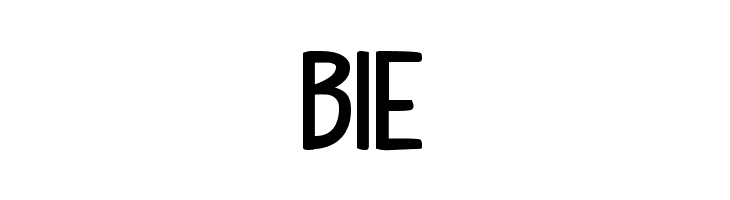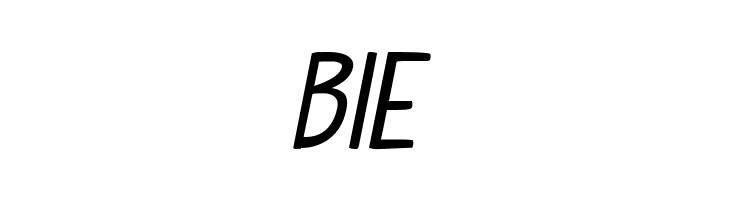
• india hair style
A playful and decorative font with whimsical loops and curls.
• India Hair Style-Hollow
A playful, hollow font with unique loops and curls on each character.
• India Hair Style-Hollow-Inverse
A decorative hollow font with playful loops and rounded terminals.
• India Hair Style-Inverse
A playful, decorative font with unique curls and loops, inspired by traditional Indian art.
• India Hair Style-Light
A playful and whimsical font with rounded terminals and consistent stroke width.
• Indiana Jonas
( Fonts by Vít Čondák )
A bold, slanted font with dynamic and energetic characteristics.
• Indiana Jonas Italic
( Fonts by Vít Čondák )
A bold, italic font with a dynamic and energetic style.
• Indy Pimp
( Fonts by Press Gang Studios - Andeh Pinkard - www.pressgang-studios.com )
A playful, handwritten-style font with consistent strokes and a casual vibe.
• indy pimp Bold
( Fonts by Press Gang Studios - Andeh Pinkard - www.pressgang-studios.com )
A bold, playful font with a hand-drawn, informal style.
• Indy Pimp Italic
( Fonts by Press Gang Studios - Andeh Pinkard - www.pressgang-studios.com )
A dynamic, italicized font with smooth, fluid strokes and a modern feel.